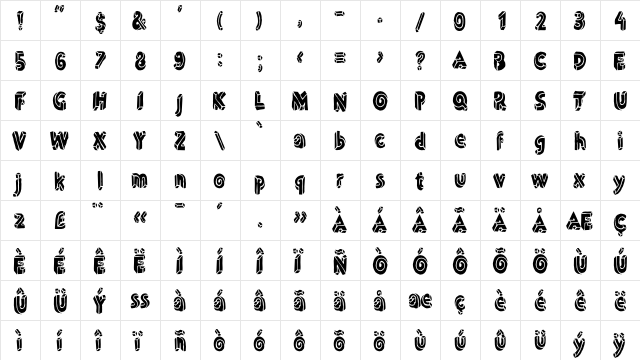
LTDummy Black Regular
Design Context for LTDummy Black Typeface
LTDummy Black is a composed and adaptable typeface that performs quietly and consistently across a wide range of design contexts.
Pro Tip: Pair LTDummy Black with a font of contrasting weight or personality to build a more expressive typographic hierarchy.